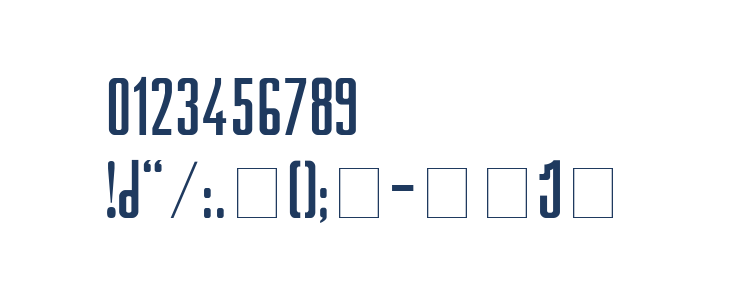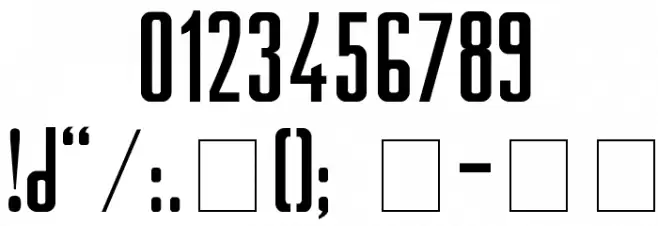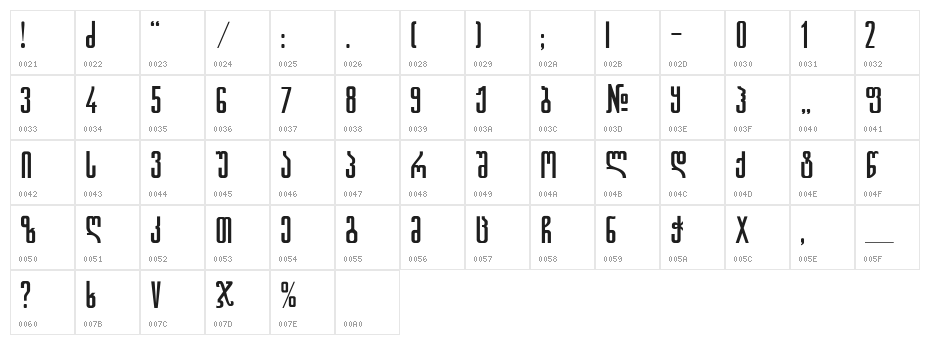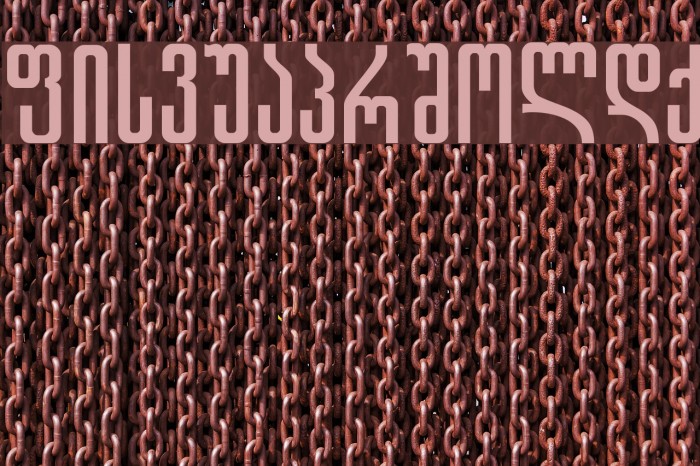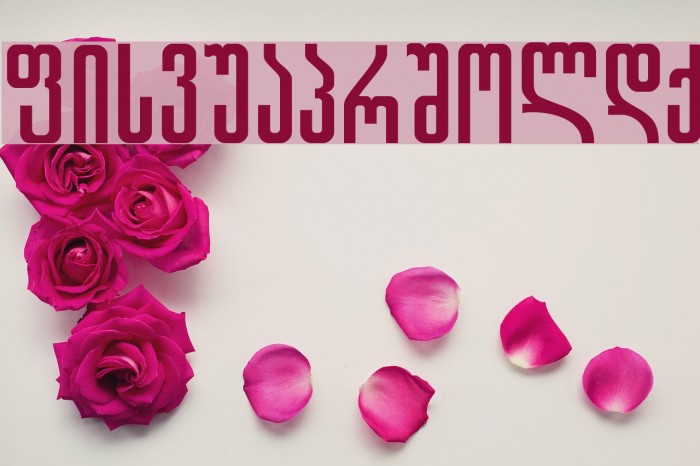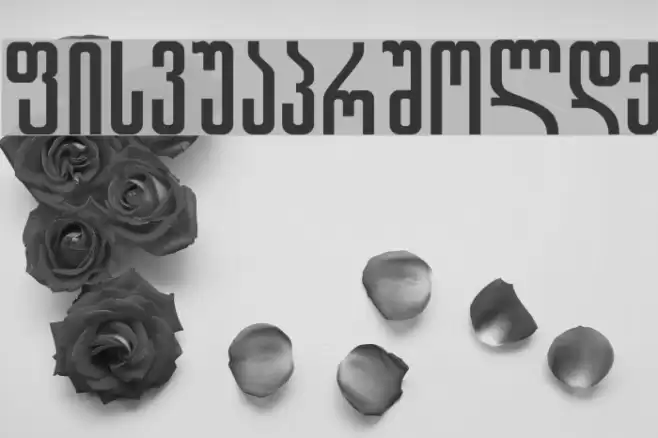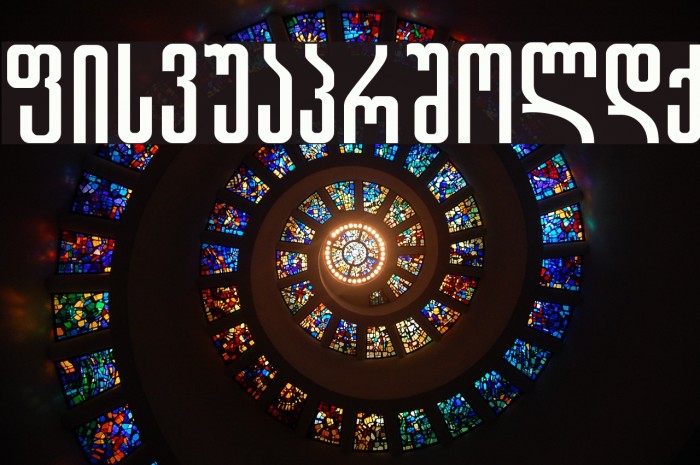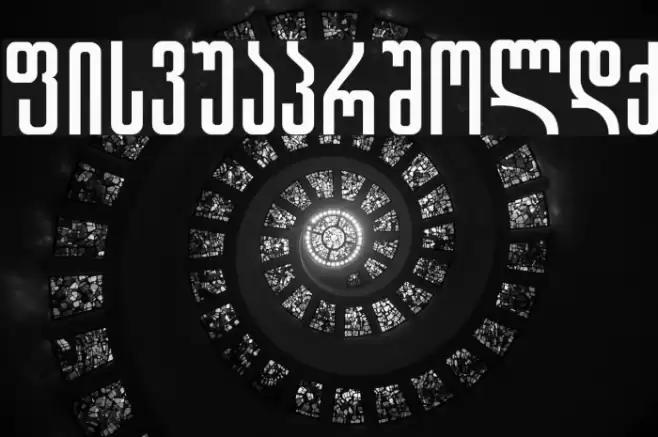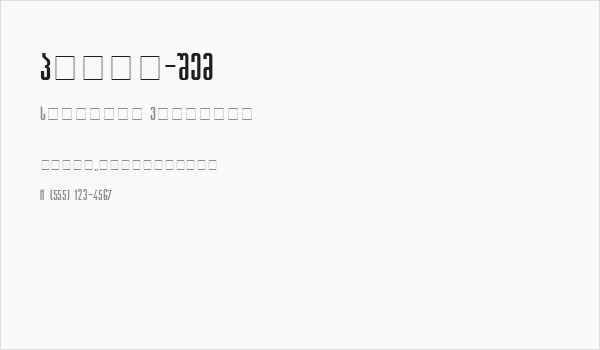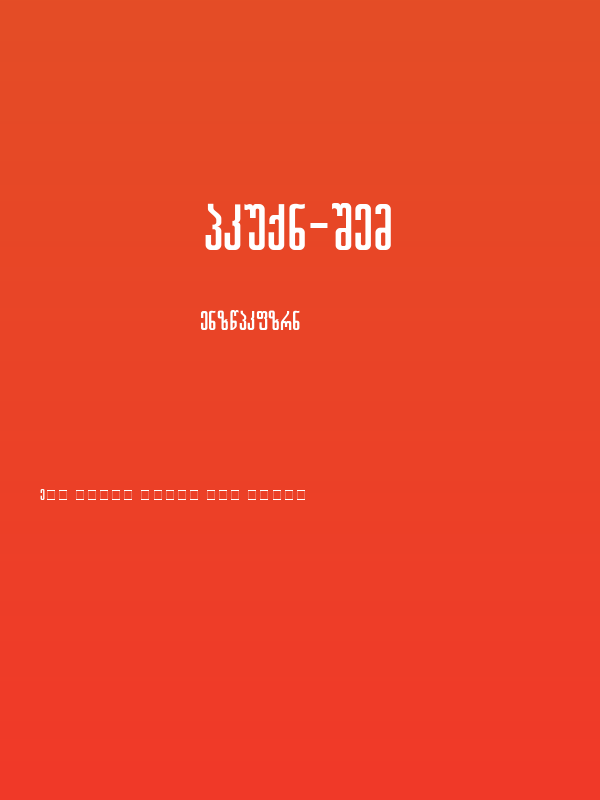
Gremy-ITV Font
Gremy-ITV Description
This font features a bold and modern design with a strong geometric influence. The characters are tall and narrow, creating a condensed appearance that is both striking and legible. The uppercase letters exhibit a uniform height, while the lowercase letters maintain a consistent style, enhancing readability. The numerals are clear and distinct, matching the overall aesthetic of the font. Special characters are included, adding versatility for various design needs. The font's clean lines and structured form make it suitable for contemporary projects that require a bold statement.